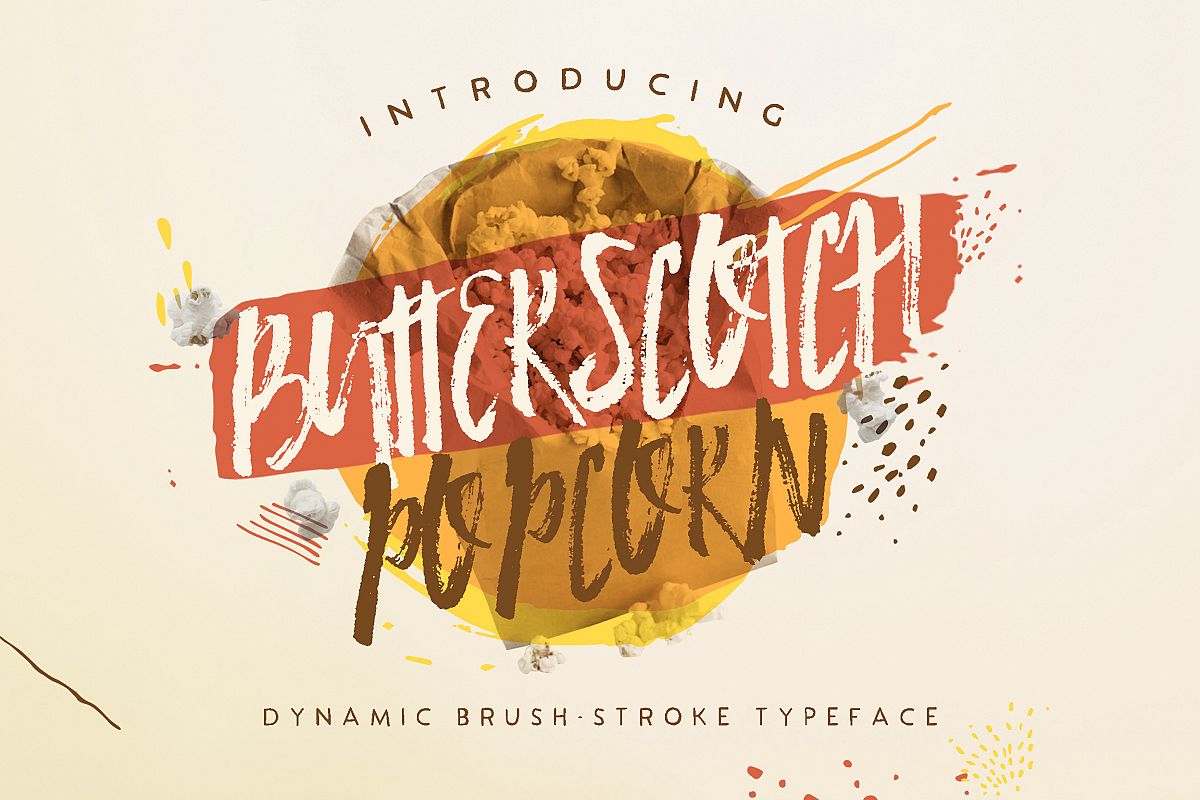
Butterscotch Popcorn
Butterscotch Popcorn is a dynamic, brush-stroke script font, created manually using paint brush. With a complete glyph collection available in the family, you can use Butterscotch Popcorn to create greeting card title, signature for design work, badge and sticker, logo and return address, some cover design and so forth, you decide!
Butterscotch Popcorn comes with accented glyphs for international languages and also, ligature feature that allows you to create different look to your design.
Butterscotch Popcorn Features:
- Natural Brush Stroke
- Hand Drawn Font
- Unique Ligatures
- Accented Glyphs